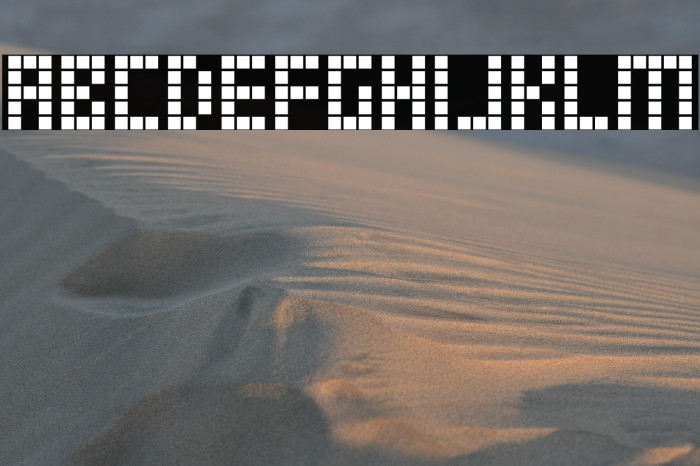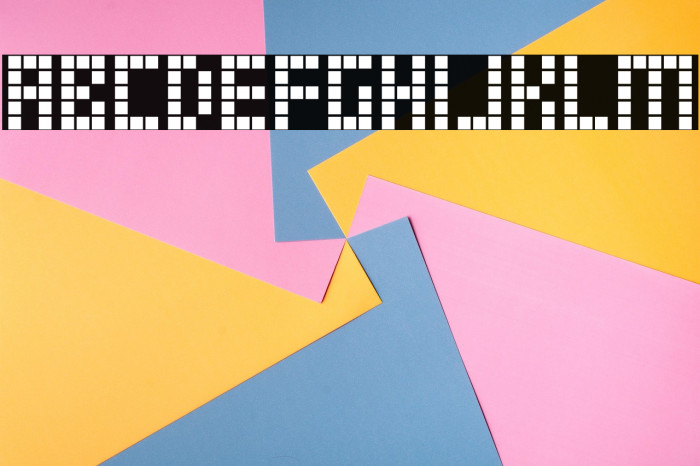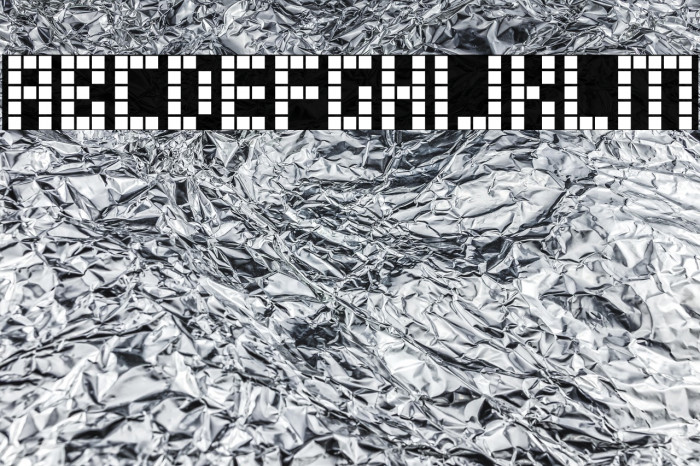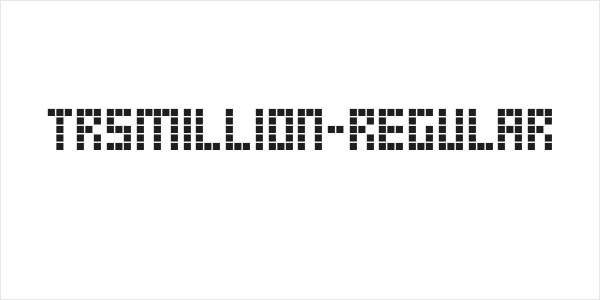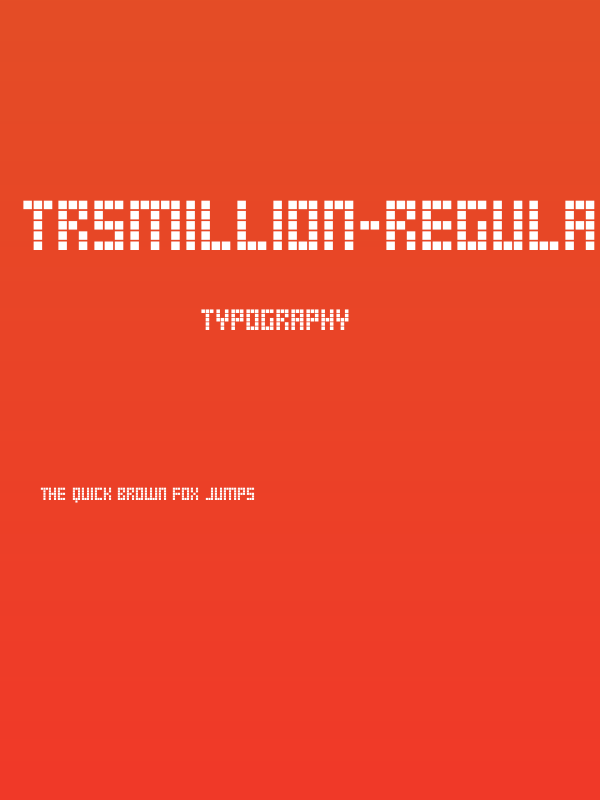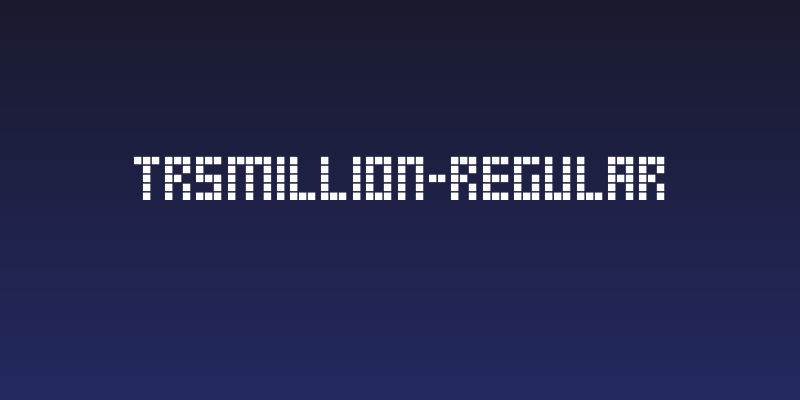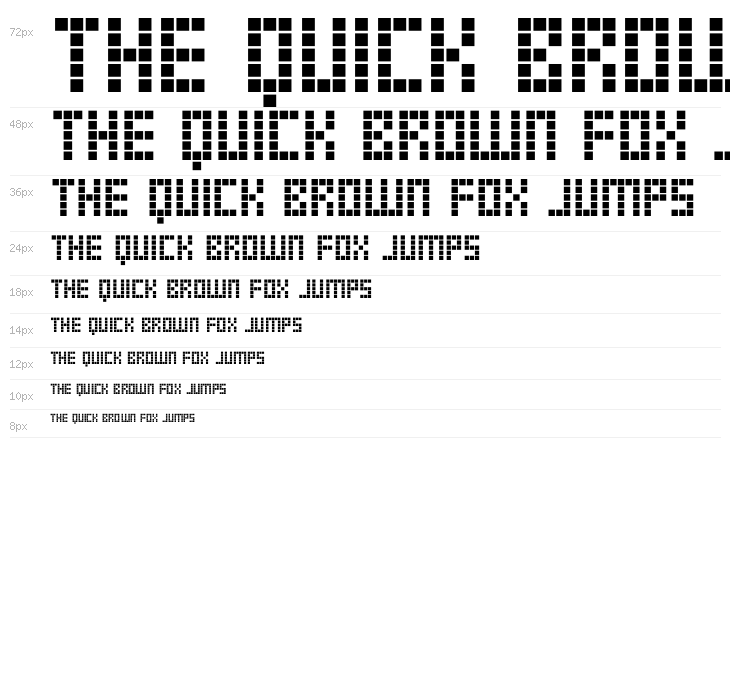
TRSMillion-Regular Font
TRSMillion-Regular Description
This font features a unique pixelated design, reminiscent of early digital displays and retro video games. Each character is constructed from a grid of small squares, creating a blocky and geometric appearance. The uniformity in the design gives it a structured and consistent look, while the pixelated style adds a nostalgic and playful touch. The font maintains a consistent height across all characters, ensuring readability and balance. Its distinct style makes it ideal for projects that aim to evoke a sense of nostalgia or digital aesthetics.
| Overall Style | Retro, Digital |
| Proposed Projects | Ideal for retro video game graphics, digital-themed posters, and tech-related branding. |